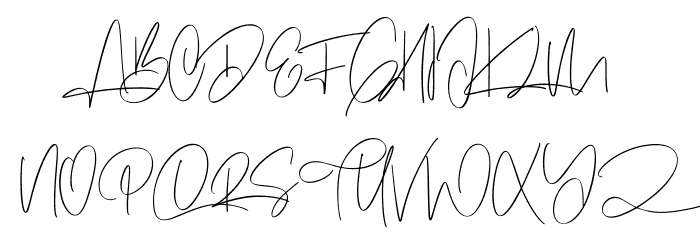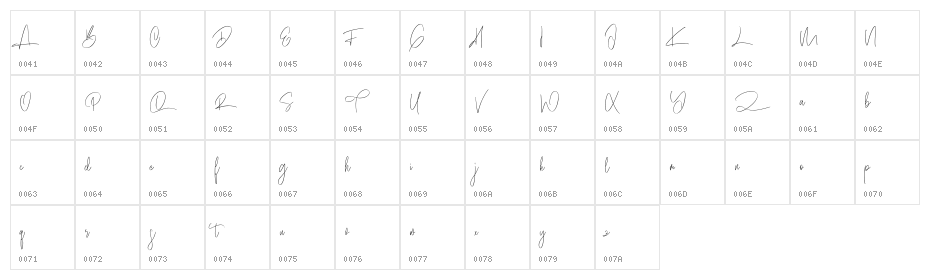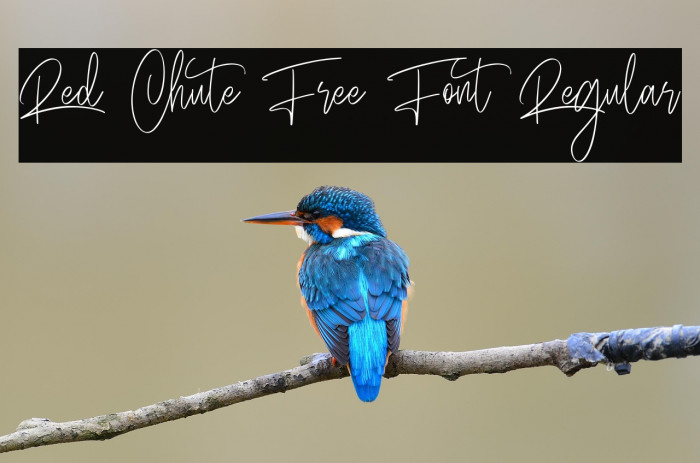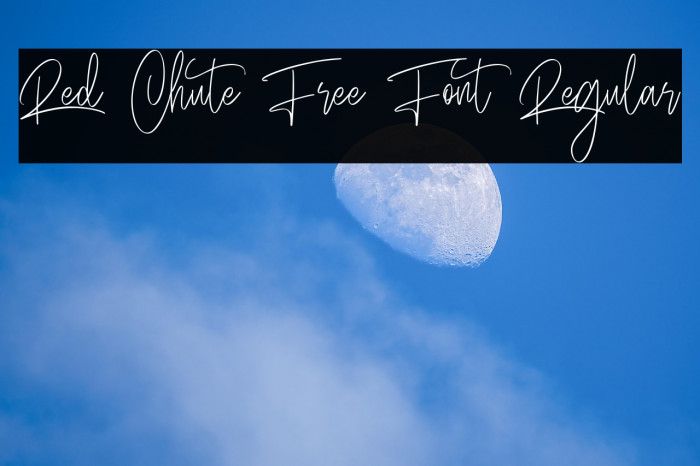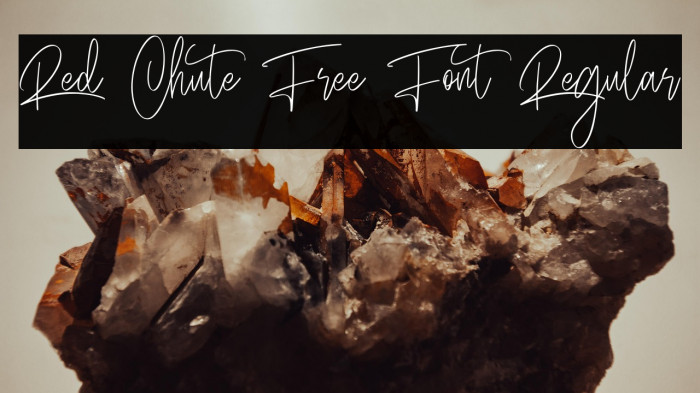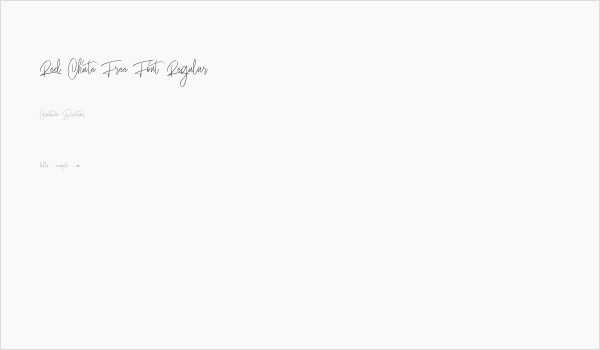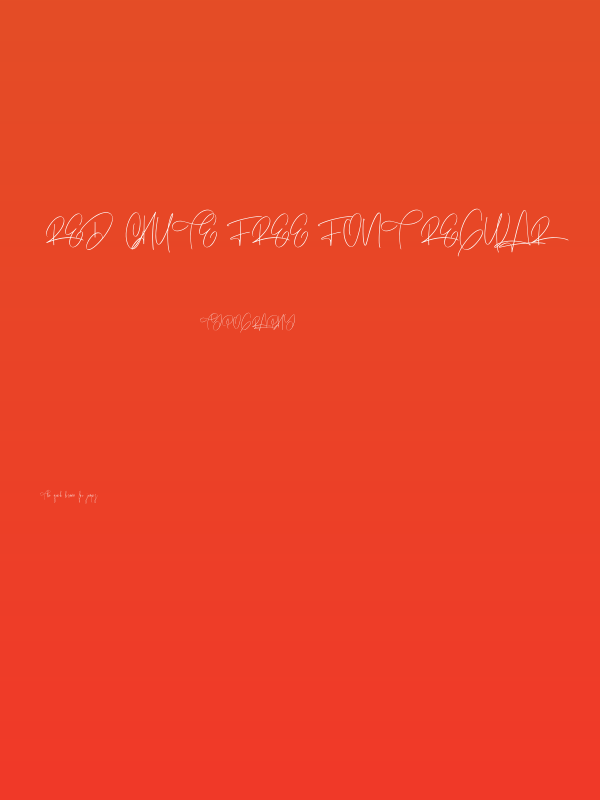
Red Chute Free Font Regular Font
Red Chute Free Font Regular Description
This font features an elegant and flowing script style, characterized by its intricate and looping letterforms. The uppercase letters are particularly ornate, with exaggerated flourishes that give a sense of movement and fluidity. The lowercase letters maintain a more restrained elegance, offering a nice contrast to the elaborate capitals. The overall design is reminiscent of calligraphic handwriting, with a modern twist that makes it suitable for contemporary design projects. The thin strokes and high contrast between thick and thin lines add to its sophisticated appearance, making it ideal for use in projects that require a touch of elegance and style.
| Use Case | Logos, Invitations, Headlines |
| Proposed Projects | Ideal for wedding invitations, luxury branding, personal signatures, and elegant stationery design. |